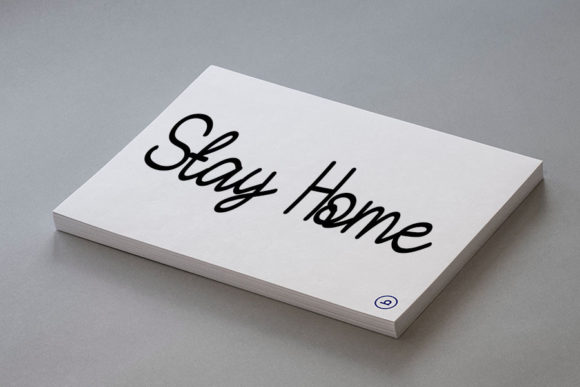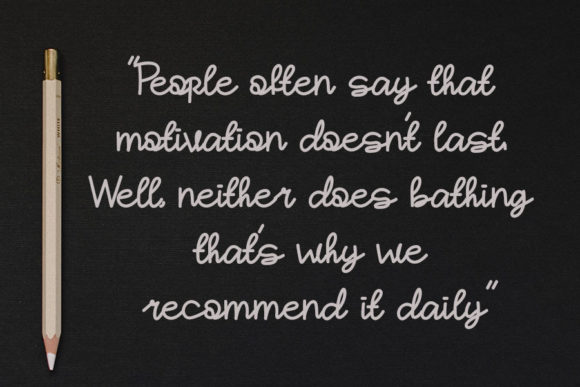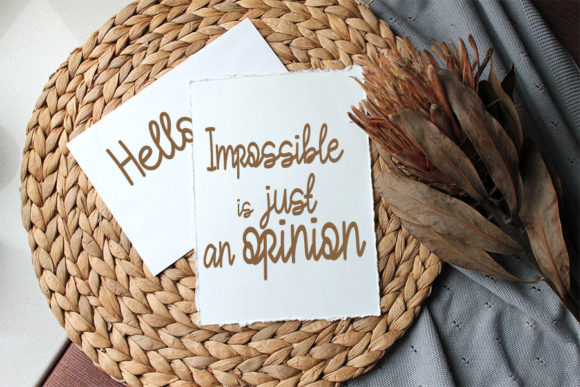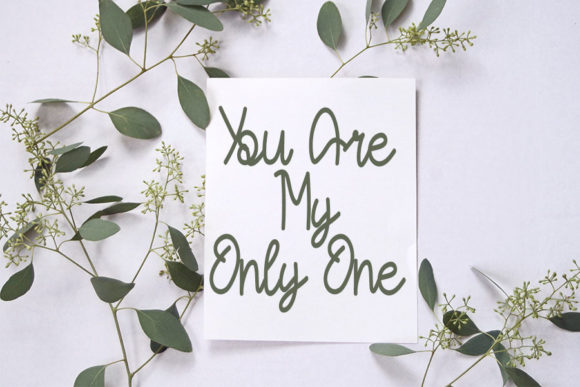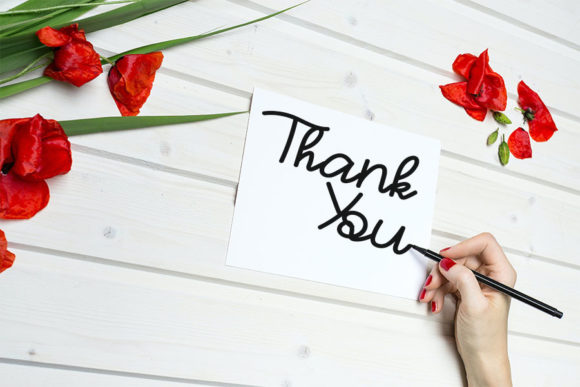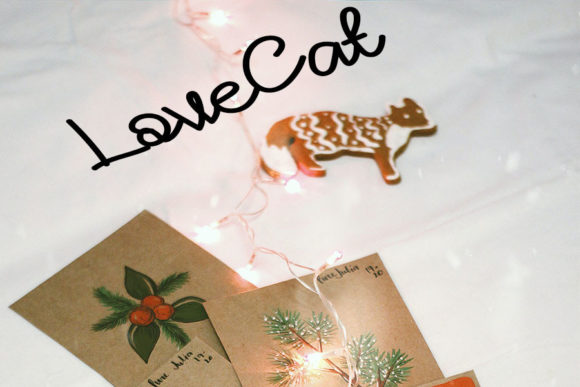
Introducing Good Allisa: The Fun and Flowing Script Font You Need
Are you tired of using the same old fonts for your creative projects? Look no further! Good Allisa is a fun and flowing script font that’s sure to bring a touch of elegance and sophistication to your designs. Masterfully designed to become a true favorite, this font has the potential to bring each of your creative ideas to the highest level.
What Makes Good Allisa Special?
Good Allisa is more than just a font – it’s an experience. With its flowing script and fun, carefree vibe, this font is perfect for designers and crafters who want to add a personal touch to their work. Whether you’re creating a logo, a poster, or a social media graphic, Good Allisa is the perfect choice.
Key Features of Good Allisa
- Unique and Creative Design: Good Allisa boasts a unique and creative design that’s sure to make your work stand out from the crowd.
- Flowing Script: The font’s flowing script makes it perfect for creating beautiful, eye-catching headlines and titles.
- Fun and Carefree Vibe: Good Allisa has a fun and carefree vibe that’s perfect for designs that need a personal touch.
- Highly Versatile: This font is highly versatile and can be used for a wide range of design projects, from logos and posters to social media graphics and more.
Why Designers and Crafters Love Good Allisa
Designers and crafters love Good Allisa for its unique and creative design. This font is perfect for anyone who wants to add a personal touch to their work. With Good Allisa, you can create beautiful, eye-catching designs that are sure to impress.
How to Use Good Allisa in Your Designs
Using Good Allisa in your designs is easy! Here are a few tips to get you started:
- Pair it with a Bold Font: Pair Good Allisa with a bold font for a striking contrast that’s sure to make your design pop.
- Use it for Headlines: Use Good Allisa for headlines and titles to add a touch of elegance and sophistication to your design.
- Experiment with Colors: Experiment with different colors to find the perfect combination that makes your design stand out.
Tips and Tricks for Getting the Most Out of Good Allisa
Here are a few tips and tricks for getting the most out of Good Allisa:
- Use it for Branding: Use Good Allisa for branding projects, such as logos and business cards, to create a cohesive and recognizable brand identity.
- Experiment with Different Sizes: Experiment with different sizes to find the perfect fit for your design.
- Don’t be Afraid to Get Creative: Don’t be afraid to get creative and try new things! Good Allisa is a versatile font that can be used in a wide range of design projects.
In conclusion, Good Allisa is a fun and flowing script font that’s perfect for designers and crafters who want to add a personal touch to their work. With its unique and creative design, flowing script, and fun, carefree vibe, this font is sure to bring each of your creative ideas to the highest level. So why wait? Download Good Allisa today and start creating beautiful, eye-catching designs that are sure to impress!